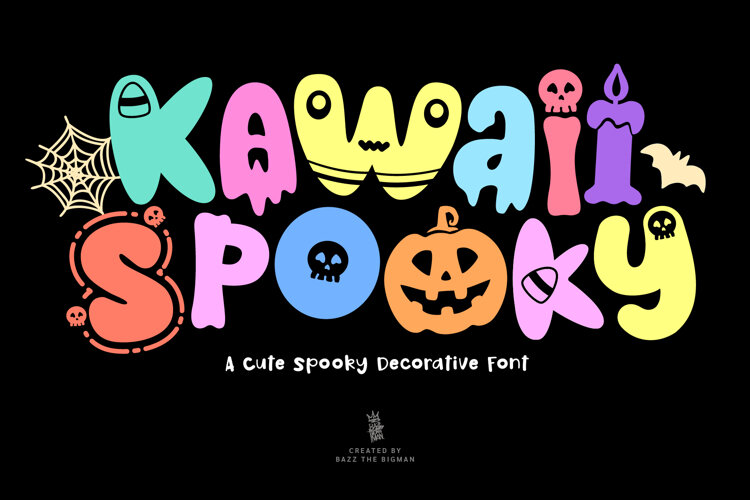
Meet Kawaii Spooky — a cute little spooky decorative font made for fun Halloween designs! 👻🎃
Kawaii Spooky combines cute cartoon monsters, playful Halloween elements, and chunky decorative letterformsto create a fun and quirky font with plenty of personality.
Perfect for Halloween projects that need something cute, colorful, playful, and a little spooky rather than scary!